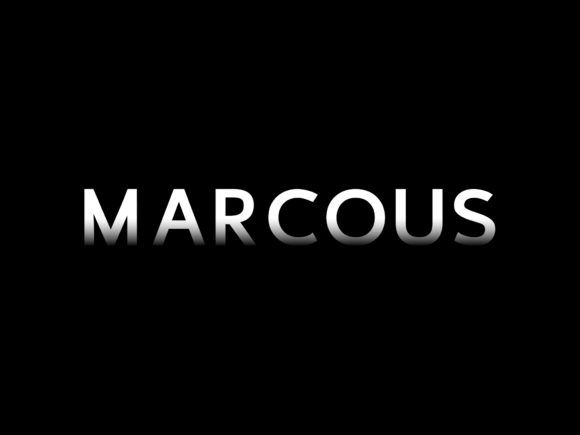
Presenting Marcous Font, a Minimal Sans Serif Masterpiece Designed to Elevate Your Branding:
Step into the world of Marcous Font, a meticulously crafted sans serif masterpiece that will leave an indelible mark on your branding endeavors. Designed by Design Stag, Marcous is a font of exquisite taste, providing a clean canvas for your creative visions to flourish.
The beauty of Marcous lies in its versatility, seamlessly adapting to a myriad of projects. It effortlessly complements logos, branding materials, posters, headlines, and web design, elevating your creations with a touch of sophistication and poise.
Harness the power of Marcous to forge a brand identity that resonates, leaving a lasting impression on your audience. Its crisp lines and balanced proportions lend an air of professionalism, while its subtle nuances add a touch of intrigue, captivating the attention of all who lay eyes upon it.
Whether you're crafting a captivating logo or designing a website that demands attention, Marcous is your ultimate companion. Its clean forms and legible characters ensure that your message is conveyed with clarity and impact, leaving no room for misinterpretation.
Embrace Marcous Font as your creative ally and embark on a journey of branding excellence. Let its timeless aesthetic enhance your projects, propelling your brand to new heights of success. Join countless satisfied designers and businesses who have discovered the transformative power of Marcous Font.
With Marcous at your disposal, you'll unlock a new realm of possibilities, crafting visual masterpieces that capture hearts and minds, leaving an unforgettable legacy in the minds of your audience.